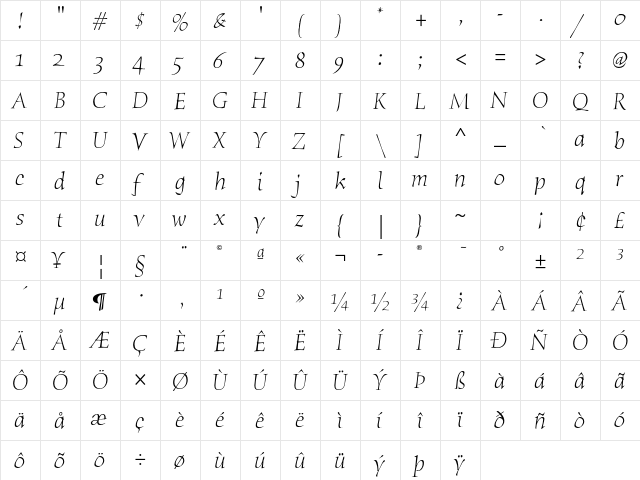
Humana Serif ITC Std Light Italic Font Preview
| Designer | Timothy Donaldson |
Design Context for Humana Serif ITC Std Typeface
Humana Serif ITC Std carries the refined structure of traditional serif typography, with bracketed terminals and considered proportions that communicate credibility and craft. The dynamic lean of this cut emphasises speed and emphasis in any layout. Its slender proportions lend an understated elegance to any composition.
Pro Tip: Use Humana Serif ITC Std with generous line-spacing for the most refined reading experience — its light weight benefits from room between lines.